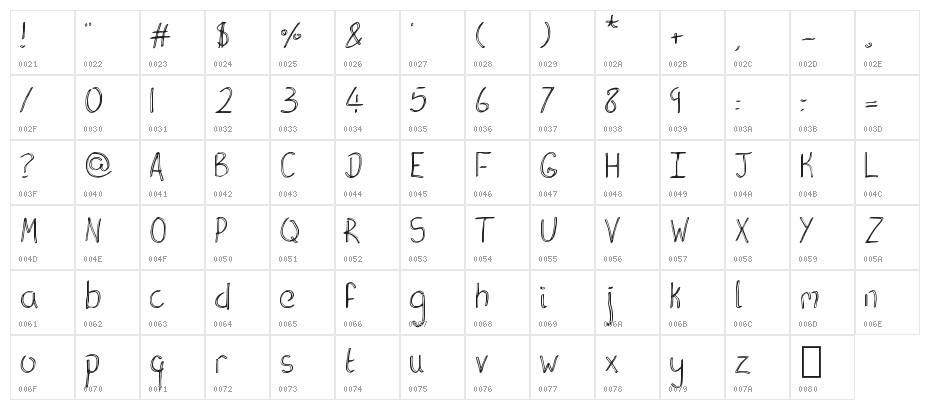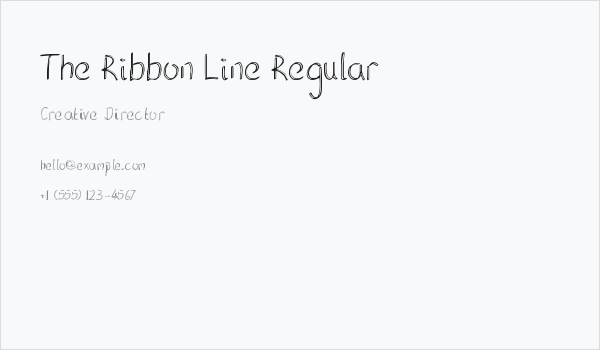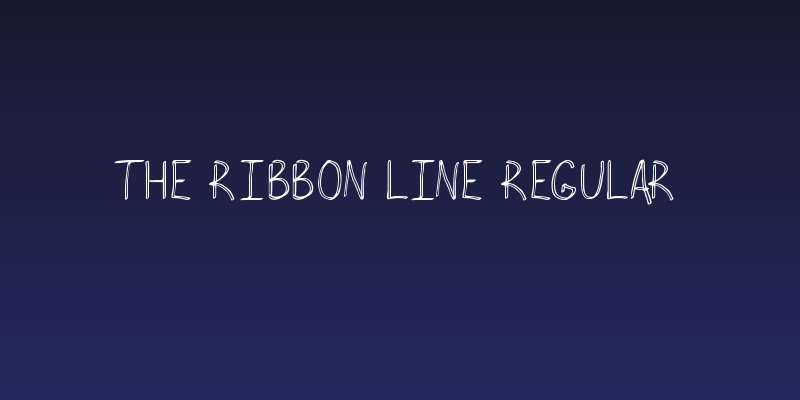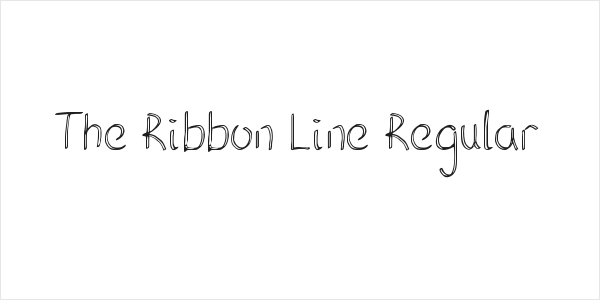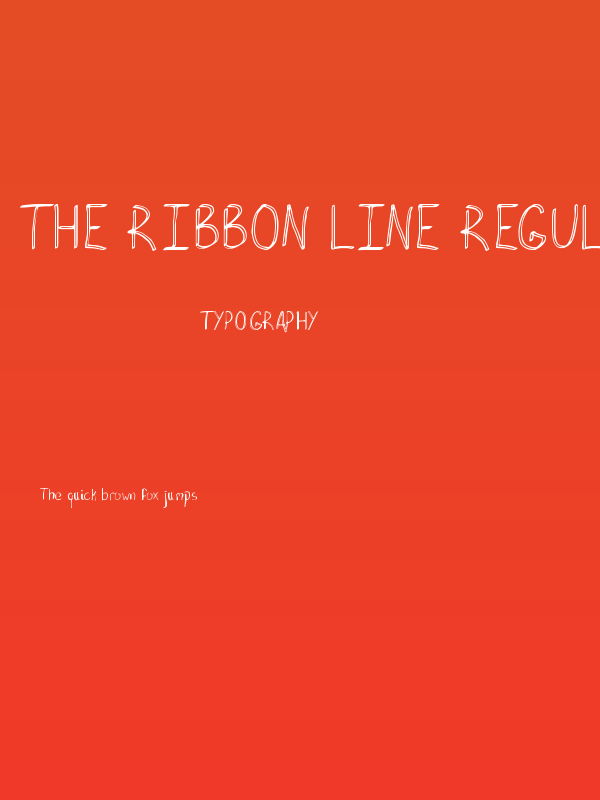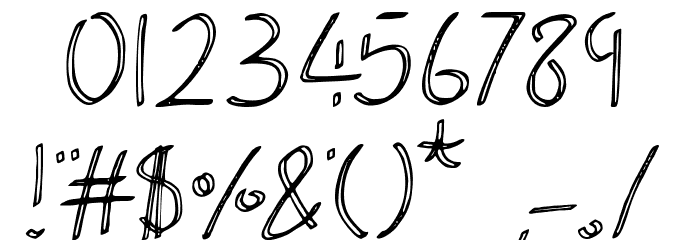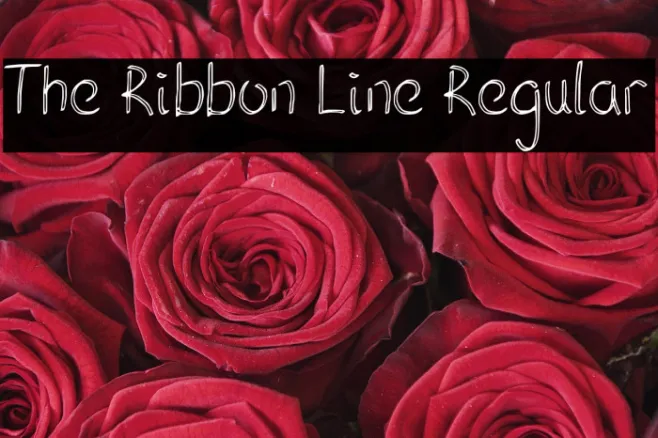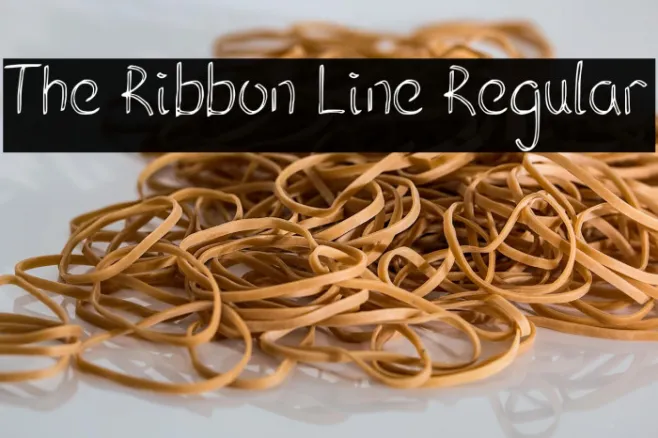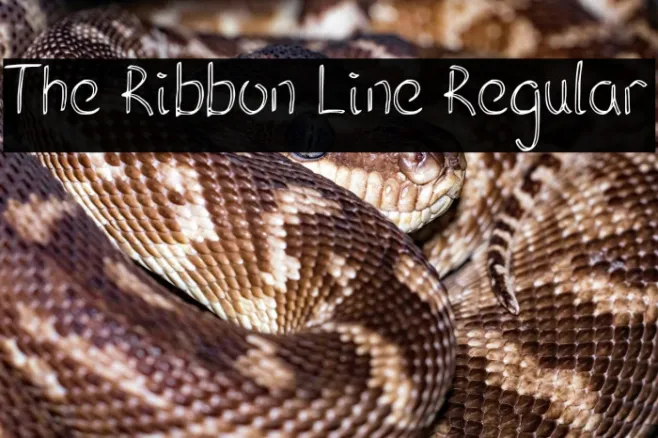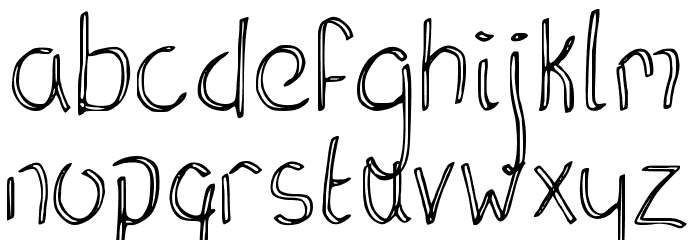
The Ribbon Line Regular Font
The Ribbon Line Regular Description
This font features a playful and whimsical design, characterized by its hand-drawn appearance. The letters are crafted with a ribbon-like quality, giving them a unique and artistic flair. Each character is distinct, with varying line thicknesses that add to the font's charm. The uppercase letters maintain a consistent height, while the lowercase letters exhibit a more varied baseline, enhancing the casual and informal style. Numbers and special characters are designed with the same playful aesthetic, making them suitable for creative projects. The overall look is both approachable and distinctive, ideal for adding a personal touch to any design.